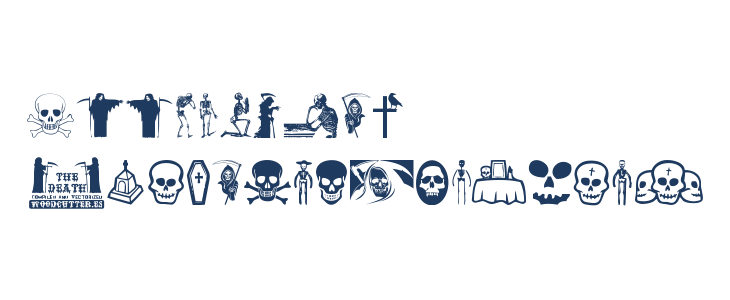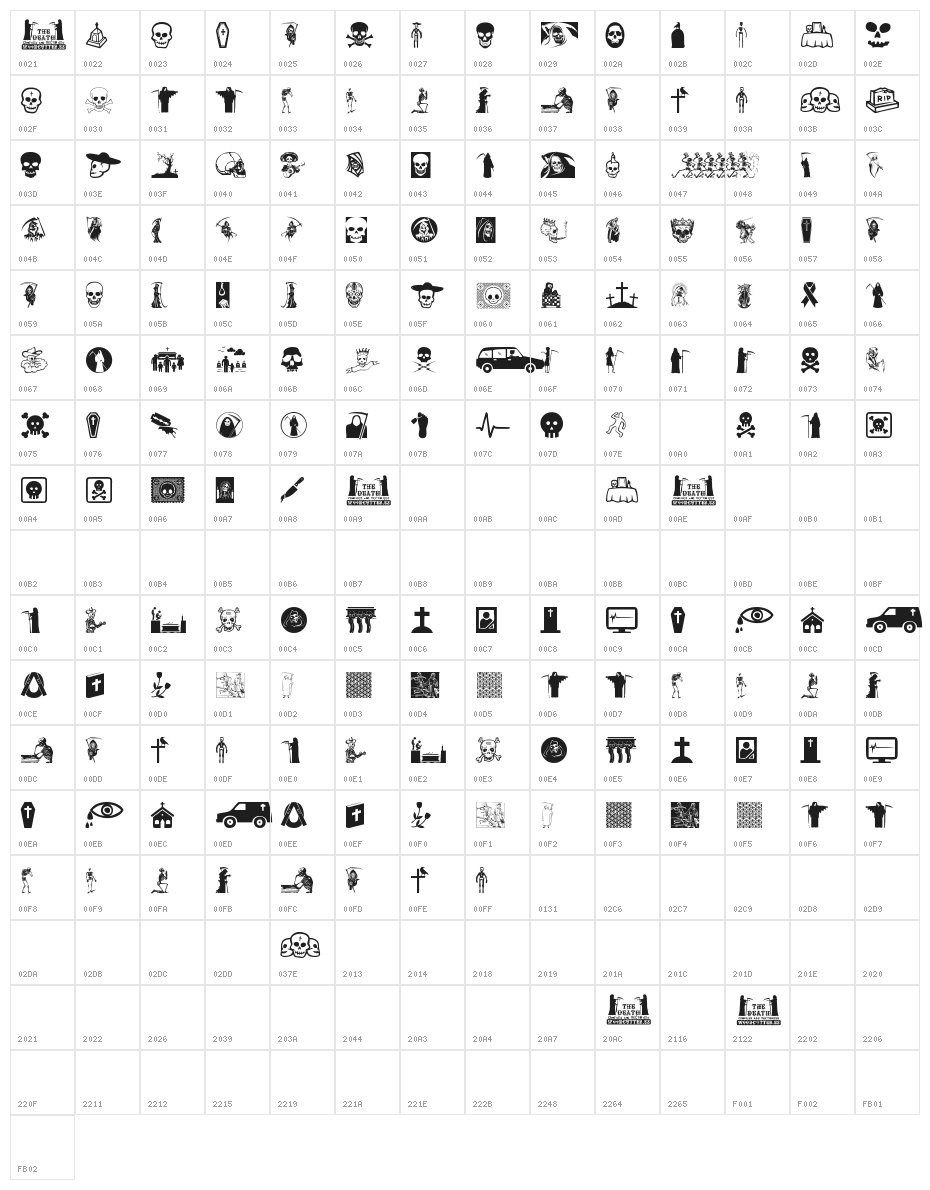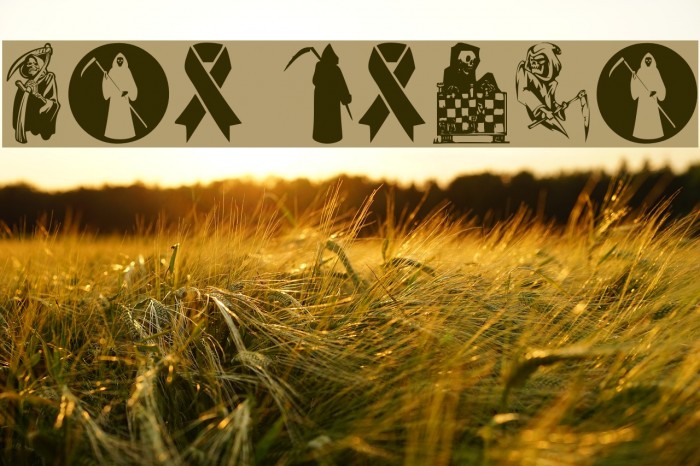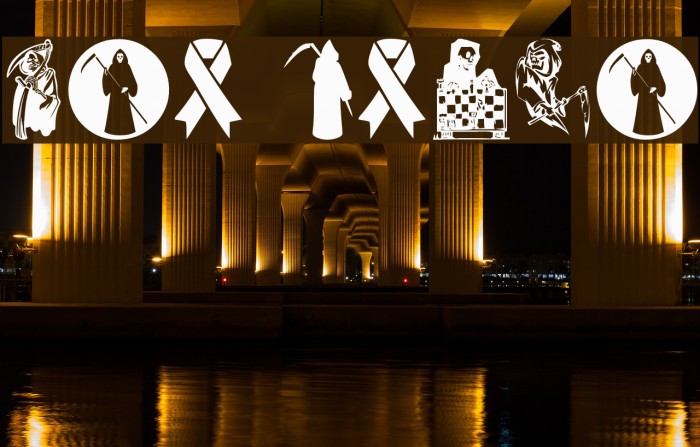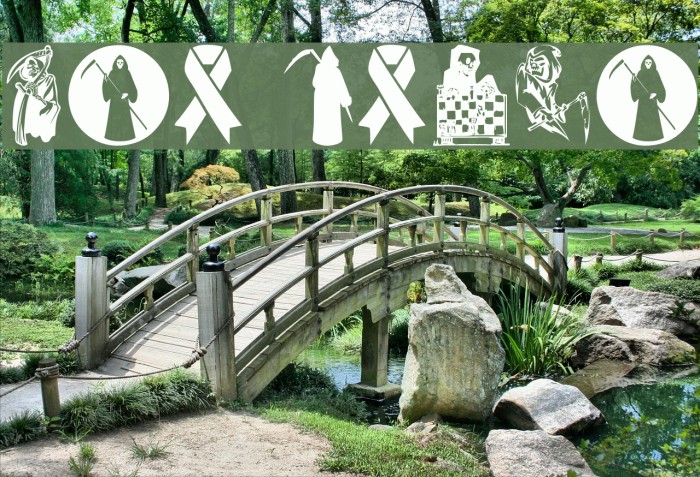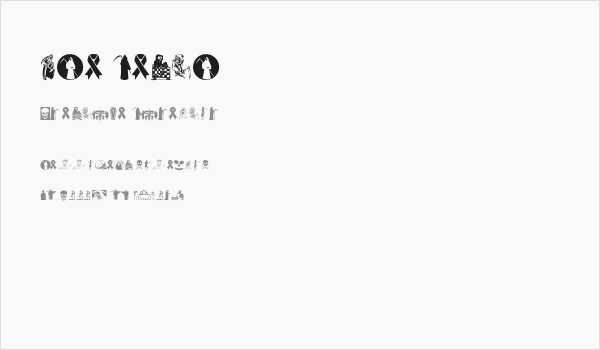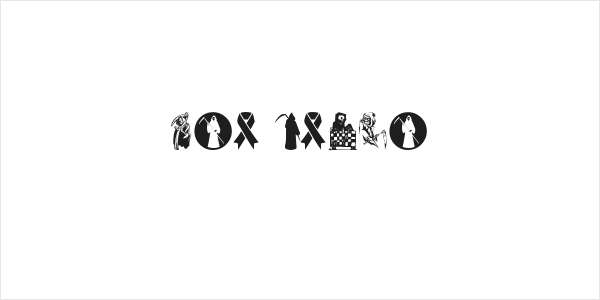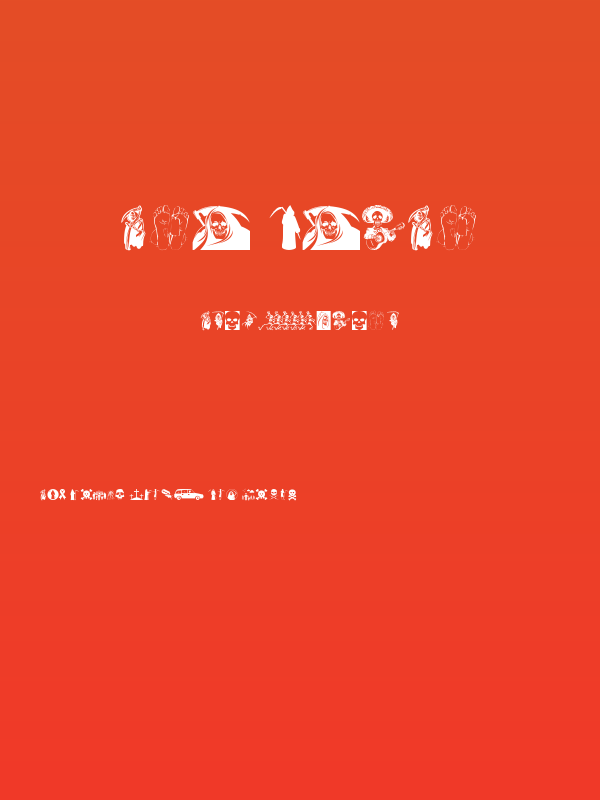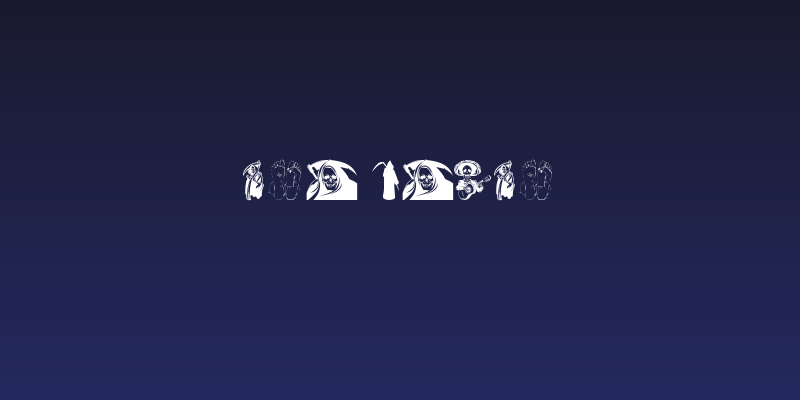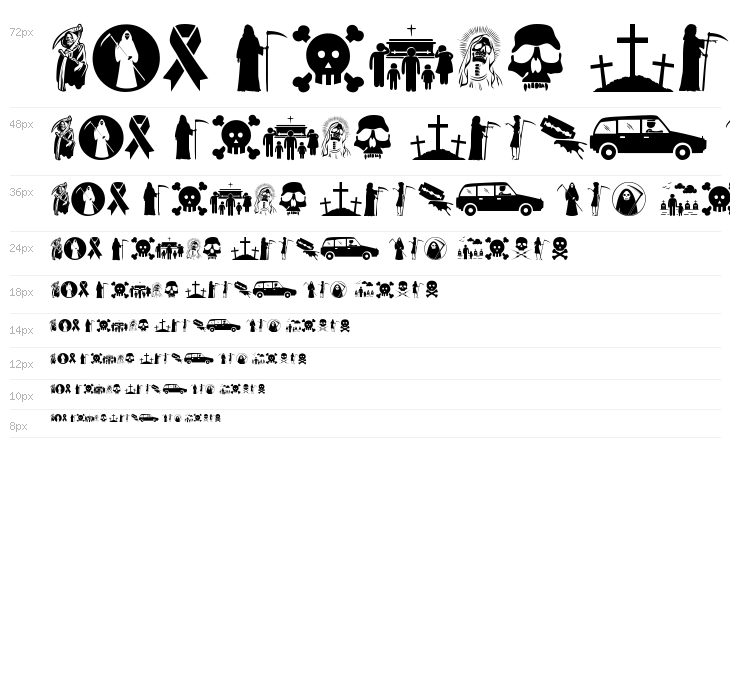
The Death Font
The Death Description
A highly decorative and illustrative dingbat font featuring various death-related imagery such as skulls, grim reapers, coffins, skeletons, and tombstones. The glyphs are bold, detailed, and primarily black-and-white, with a strong visual impact and a macabre, gothic aesthetic.
| Overall Style | Gothic, Macabre, Decorative |
| Use Case | Logos, Posters, Themed Graphics, Decorative Elements |
| Proposed Projects | Halloween invitations, horror posters, themed party flyers, gothic merchandise, tattoo designs, album covers. |